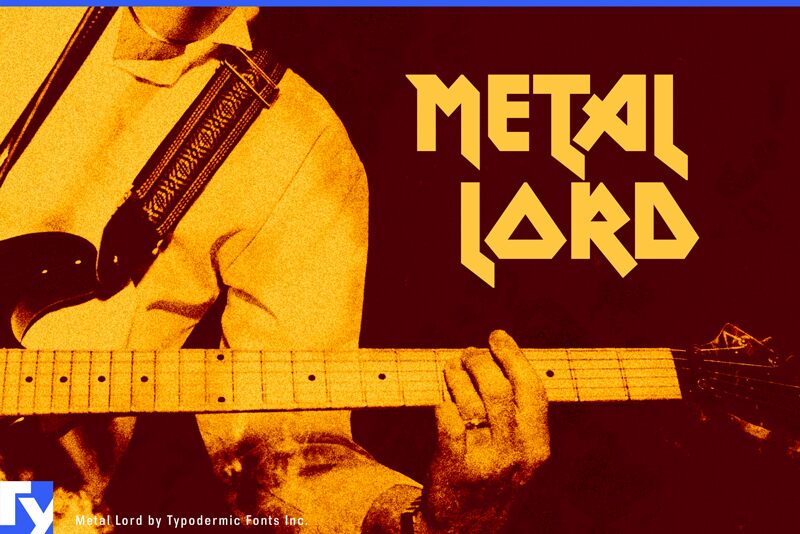
MetalLord by Ray Larabie of Typodermic Fonts Inc. is a free futuristic display font with an aggressively angular silhouette. Broad strokes meet sharp wedges, deep notches, and triangular openings. The changing widths make the letters look cut from folded metal.
Its blade-like geometry can echo spacecraft, armor, and mechanical illustrations in game graphics and science-fiction posters. Album packaging and event merchandise also suit its hard-edged forms, where the repeated points can become part of a metallic emblem or pattern.
Metal Lord was created in 1996. It has been completely redrawn, respaced, and kerned. It is somewhat heavier than the previous version and has a slightly different design based on additional reference material.
The original version was loosely extrapolated from the letters in the Iron Maiden logo. Some letters also appeared in Iron Maiden’s official calendars from the late 1980s. The same font was later found on a 1976 poster for the David Bowie film The Man Who Fell to Earth and on a 1979 real-estate paperback cover. The original designer remains unknown.
A lowercase script S from a 1988 calendar was removed from the main character set but remains available as a stylistic alternate in OpenType applications.
In OpenType-compatible applications, letters may occasionally flip, tuck, or grow small flags to fit together. The font also includes punctuation, symbols, fractions, and numeric ordinals.